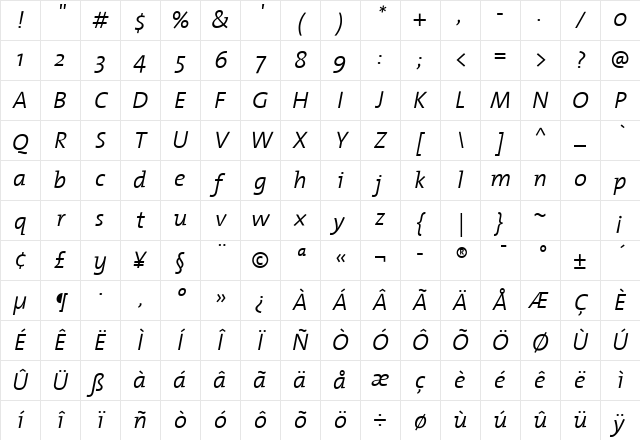
The Mix Semi Light- Italic
Design Context for The Mix Semi Light-
The Mix Semi Light- is a composed and adaptable typeface that performs quietly and consistently across a wide range of design contexts. The slanted form adds forward momentum and visual energy. Its slender proportions lend an understated elegance to any composition.
Pro Tip: Use The Mix Semi Light- for emphasis, pull quotes, and subheadings where its slanted energy can add rhythm to the layout.